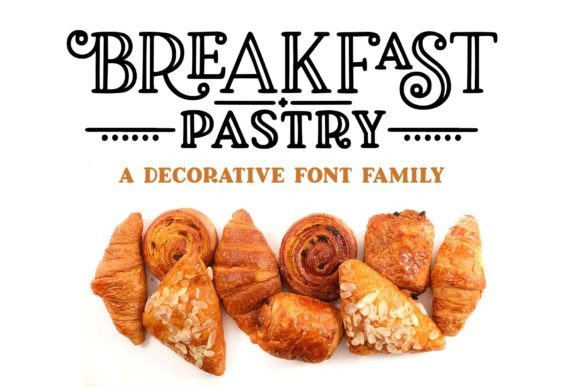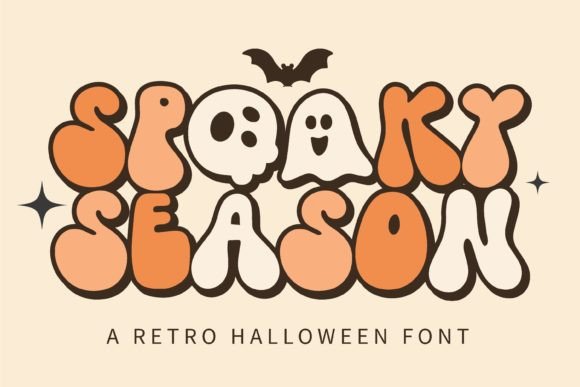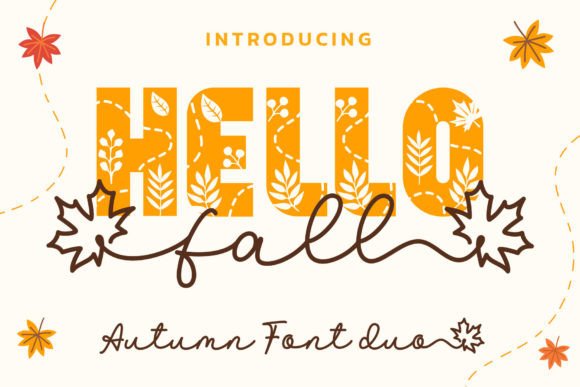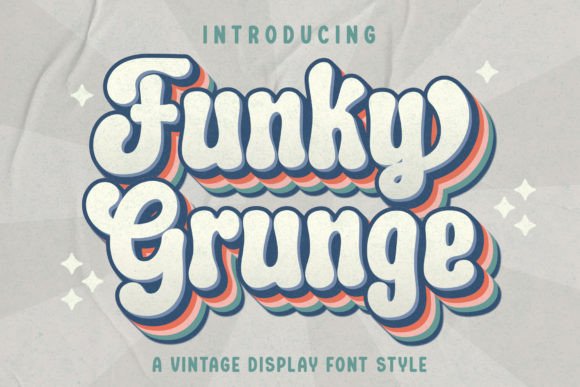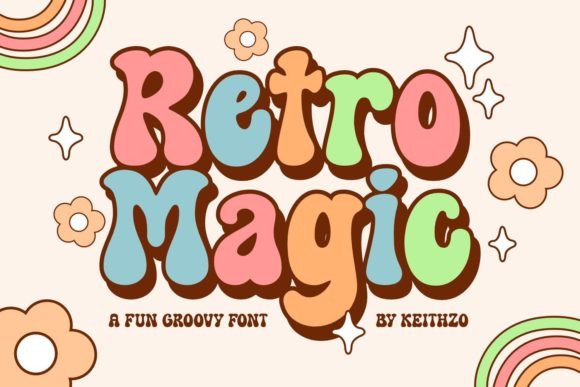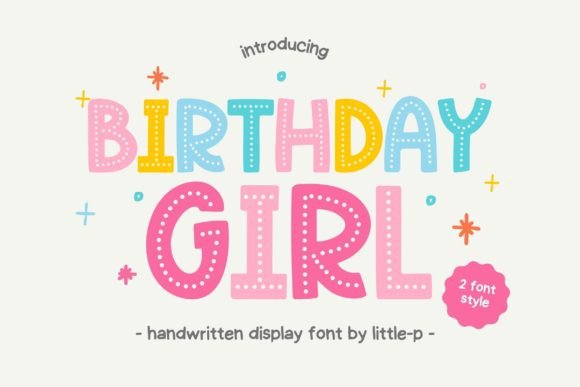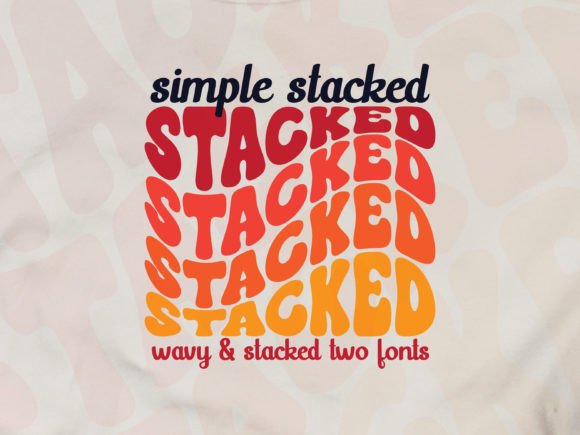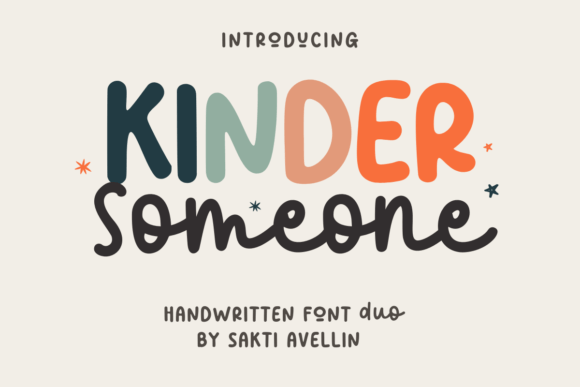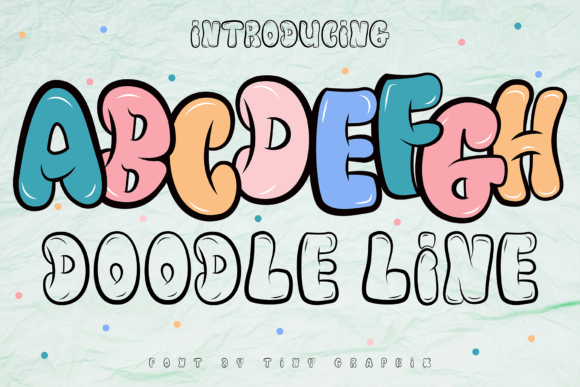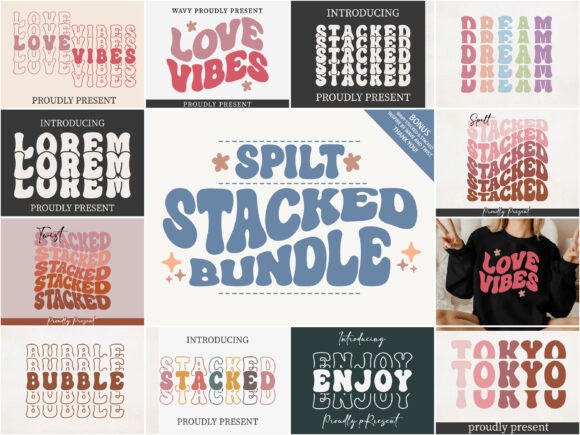
Ready to achieve designs that stop people in their tracks? You need the right font. We’ve curated a collection of the best display fonts—the secret weapon for creating truly bold and eye-catching work. Find your perfect match for your next logo, poster, or unique Cricut creation!
Fonts made to
stop the scroll.
A curated 2026 edit of 100 display fonts for bold headlines, creative branding, chunky packaging, retro posters, varsity graphics, kids projects, western art, elegant editorials, and fantasy themes.
Explore 100 unique display fonts across 8 bold, retro, sporty, playful, western, elegant, and imaginative collections.
✦Modern Creative & Novelty
Distinctive display fonts for modern logos, posters, social graphics, packaging, crafts, and creative campaigns.
Display FontShortcake Strawberry
A distinctive display font for modern logos, posters, social graphics, packaging, crafts, campaigns, and creative branding.
Display FontClassroom Memories
A distinctive display font for modern logos, posters, social graphics, packaging, crafts, campaigns, and creative branding.
Display FontTruth Dare
A distinctive display font for modern logos, posters, social graphics, packaging, crafts, campaigns, and creative branding.
Display FontAll My Fonts
A distinctive display font for modern logos, posters, social graphics, packaging, crafts, campaigns, and creative branding.
Display FontLemon Harvest
A distinctive display font for modern logos, posters, social graphics, packaging, crafts, campaigns, and creative branding.
Display FontThe Pickles House
A distinctive display font for modern logos, posters, social graphics, packaging, crafts, campaigns, and creative branding.
Display FontLucky Chunks
A distinctive display font for modern logos, posters, social graphics, packaging, crafts, campaigns, and creative branding.
Display FontSummer Flower
A distinctive display font for modern logos, posters, social graphics, packaging, crafts, campaigns, and creative branding.
Display FontSecond Grade Duo
A distinctive display font for modern logos, posters, social graphics, packaging, crafts, campaigns, and creative branding.
Display FontBloomsy
A distinctive display font for modern logos, posters, social graphics, packaging, crafts, campaigns, and creative branding.
Display FontCrafty Bloom
A distinctive display font for modern logos, posters, social graphics, packaging, crafts, campaigns, and creative branding.
Display FontBreakfast Pastry
A distinctive display font for modern logos, posters, social graphics, packaging, crafts, campaigns, and creative branding.
Display FontPreppy Hunky
A distinctive display font for modern logos, posters, social graphics, packaging, crafts, campaigns, and creative branding.
Display FontCoastal Delight
A distinctive display font for modern logos, posters, social graphics, packaging, crafts, campaigns, and creative branding.
Display FontHave a Nice Day Honey
A distinctive display font for modern logos, posters, social graphics, packaging, crafts, campaigns, and creative branding.
Display FontStrawberry Milkshake
A distinctive display font for modern logos, posters, social graphics, packaging, crafts, campaigns, and creative branding.
Display FontBrave Treat
A distinctive display font for modern logos, posters, social graphics, packaging, crafts, campaigns, and creative branding.
Display FontLittle Stories
A distinctive display font for modern logos, posters, social graphics, packaging, crafts, campaigns, and creative branding.
Display FontSweetie Honey
A distinctive display font for modern logos, posters, social graphics, packaging, crafts, campaigns, and creative branding.
Display FontSweetie Pop
A distinctive display font for modern logos, posters, social graphics, packaging, crafts, campaigns, and creative branding.